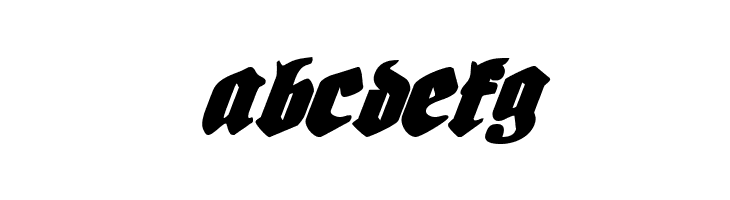
Hydraulics System Italic Font
- Font: Hydraulics System Italic
A bold, condensed Blackletter style font with sharp, angular lines and intricate detailing.